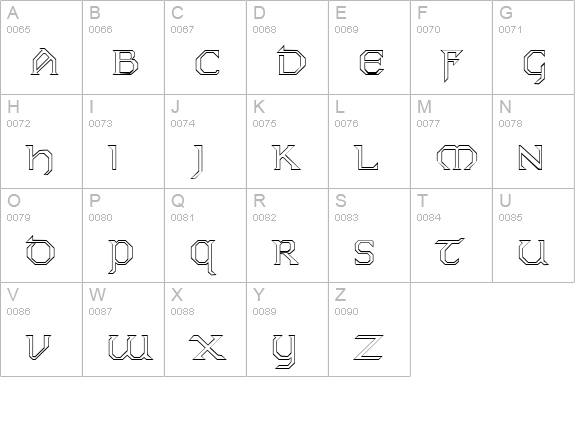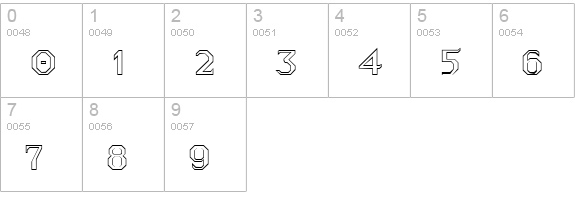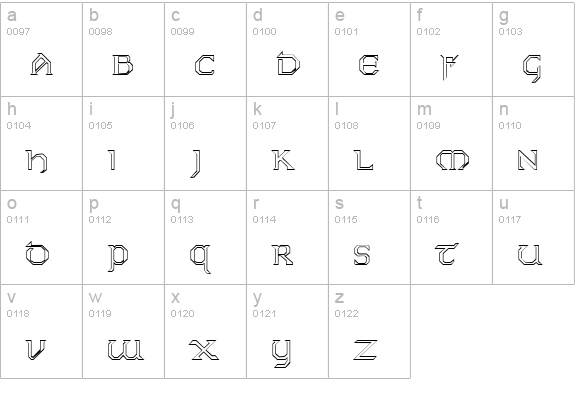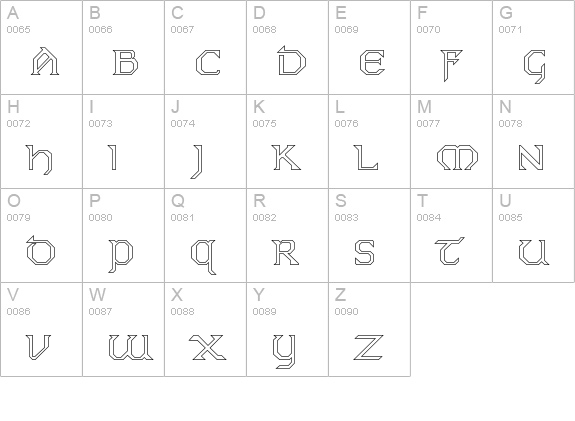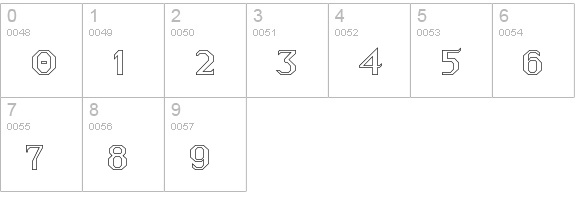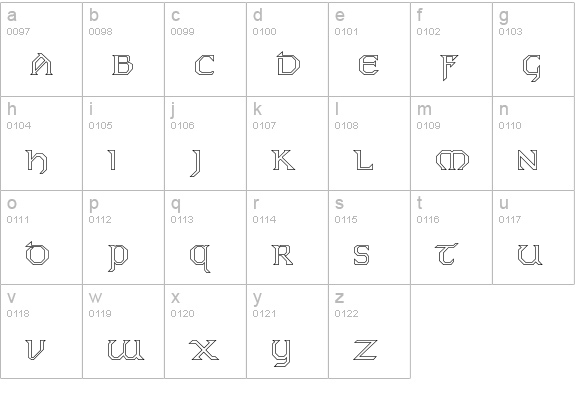
KarthagoOpen Font Details
KarthagoOpen is a modern and stylish font that exudes sophistication and elegance. With its clean lines and sleek design, this typeface is perfect for a wide range of design projects, from branding to editorial design. The versatility of KarthagoOpen makes it a great choice for both digital and print applications. One of the best things about KarthagoOpen is that it is completely free to download. That's right, you can get your hands on this beautiful font at no cost whatsoever. Simply head over to FontsMarket.com and start using KarthagoOpen in your projects today. Whether you're working on a logo, a website, or a marketing campaign, KarthagoOpen is sure to make your designs stand out. So why wait? Download KarthagoOpen now and elevate your designs with this stunning and free font.